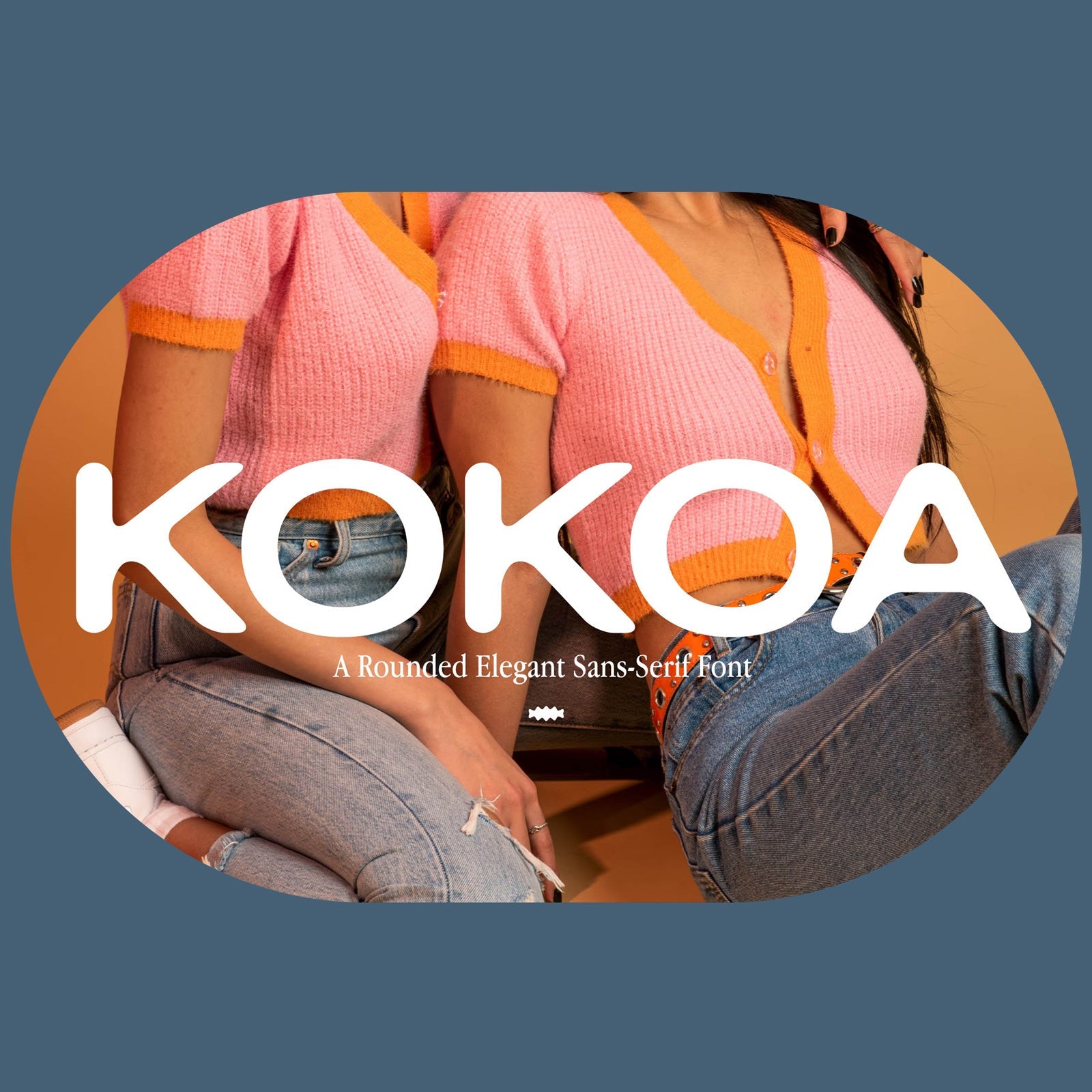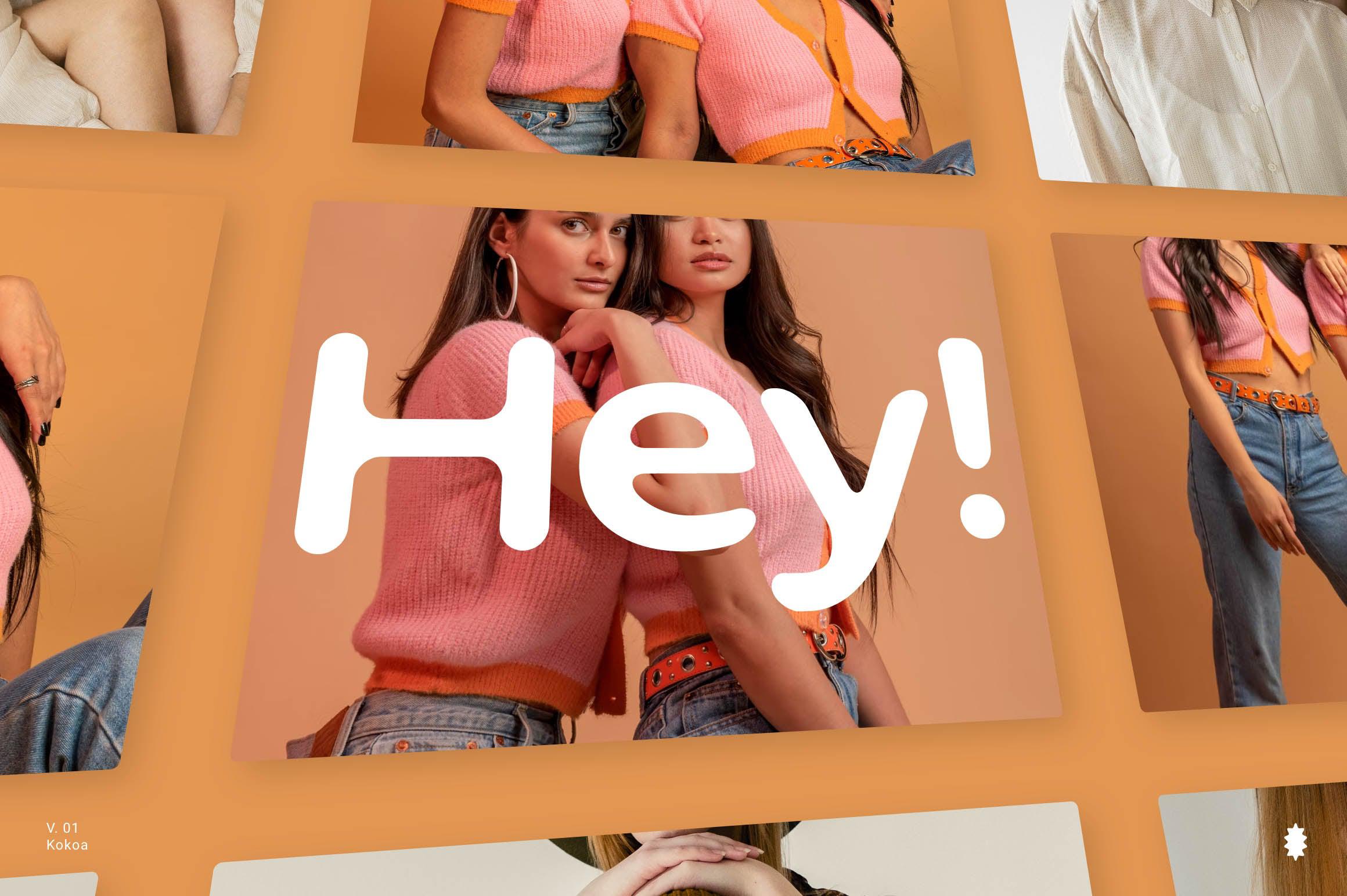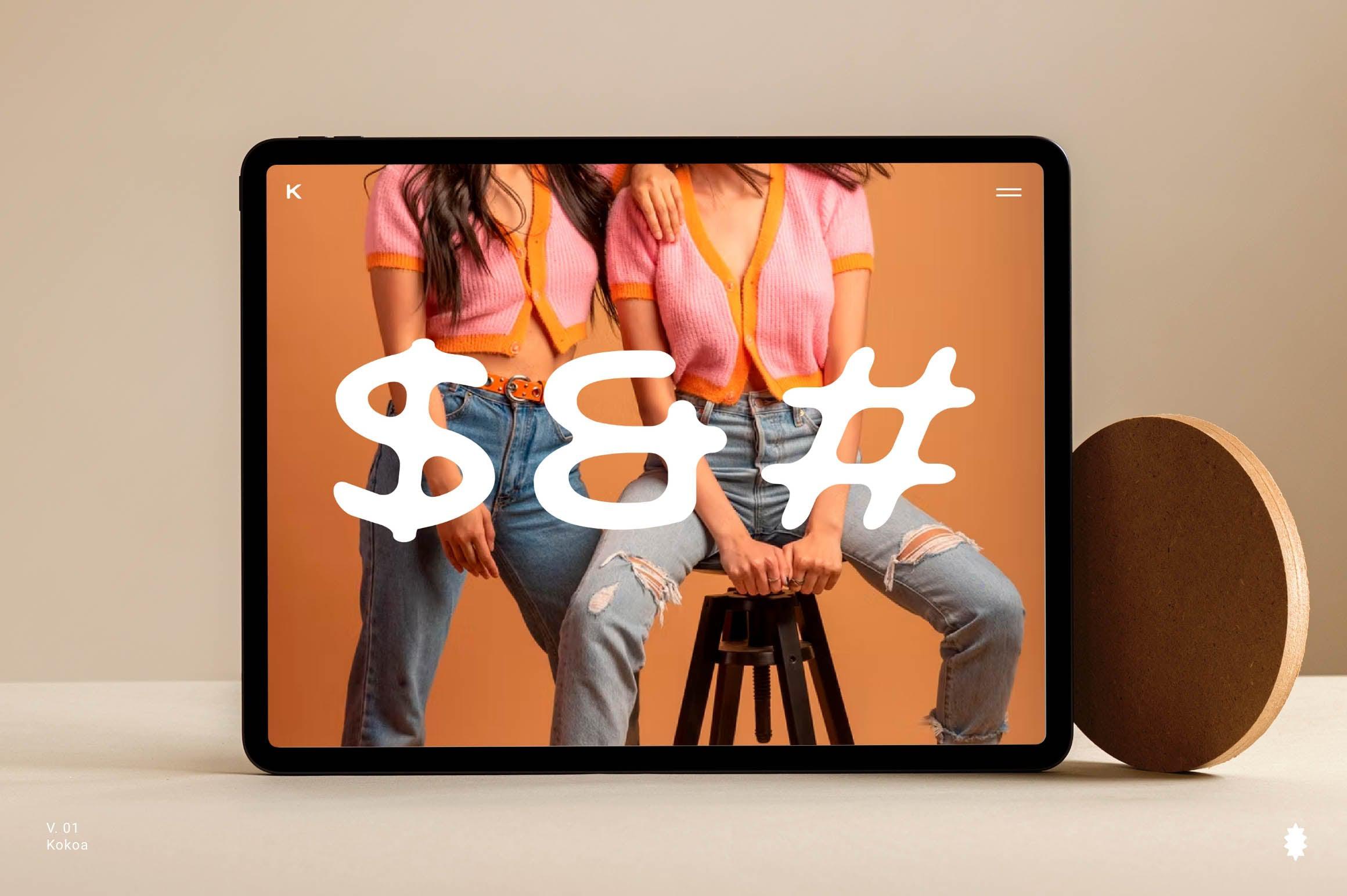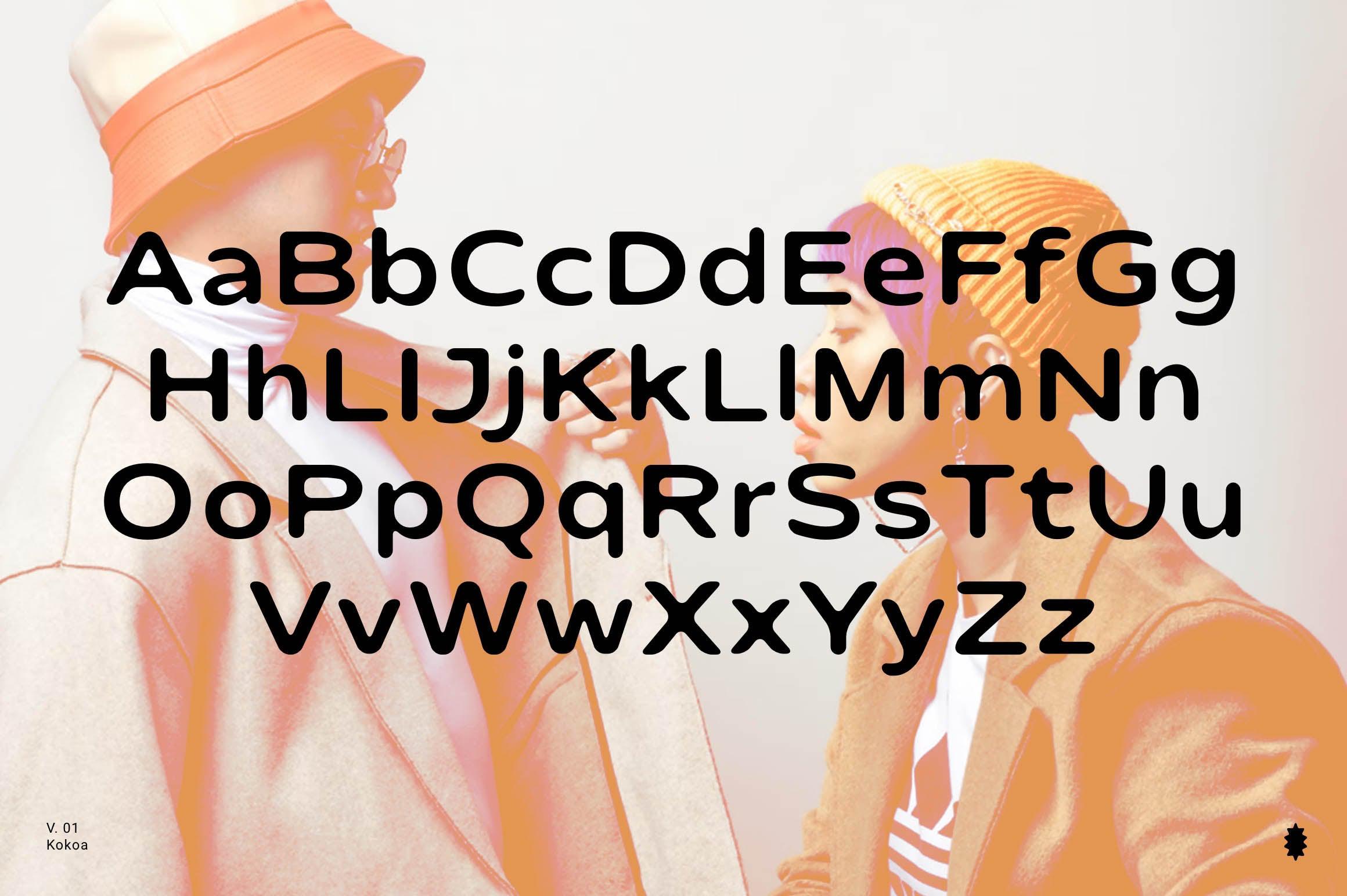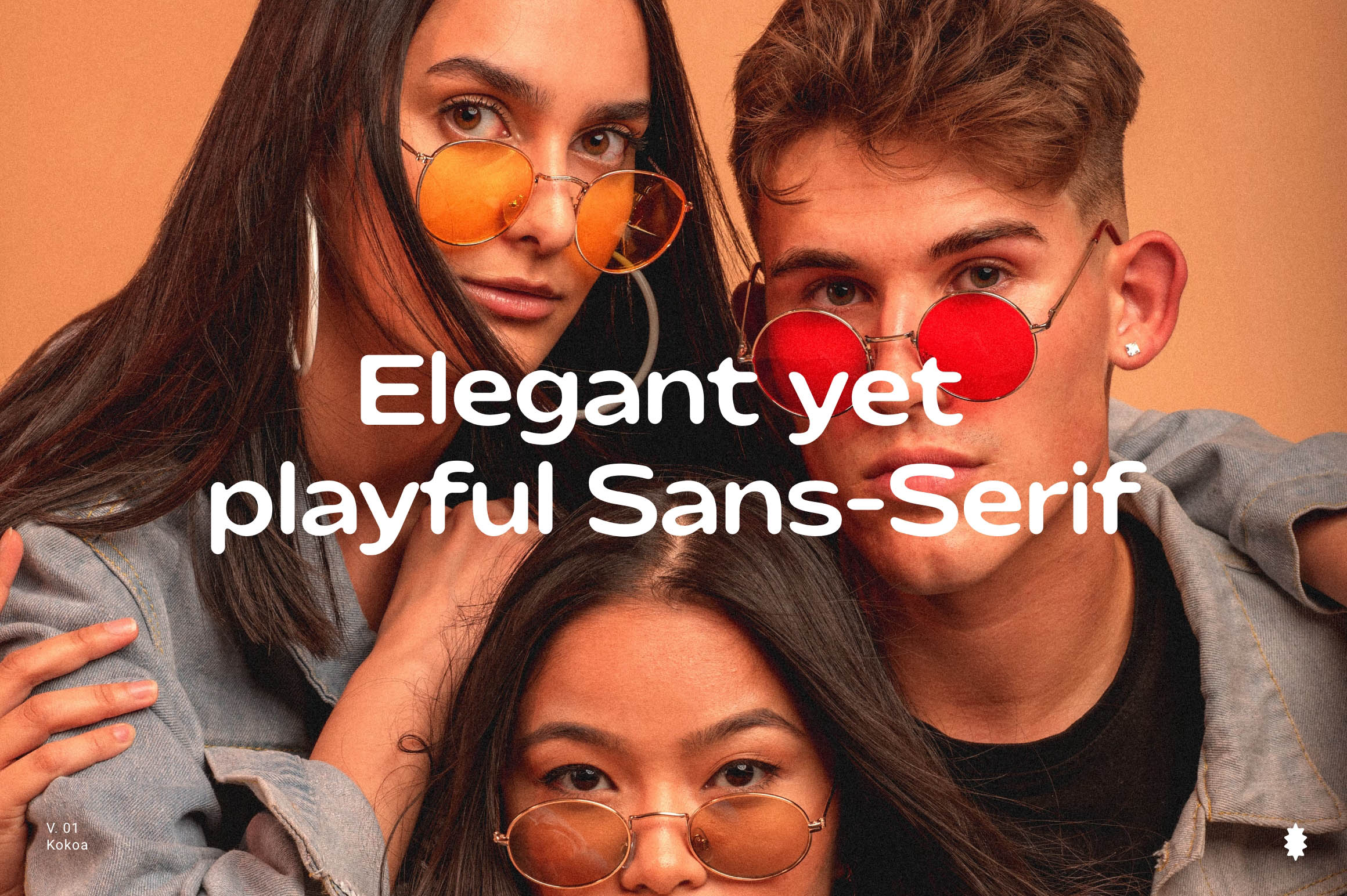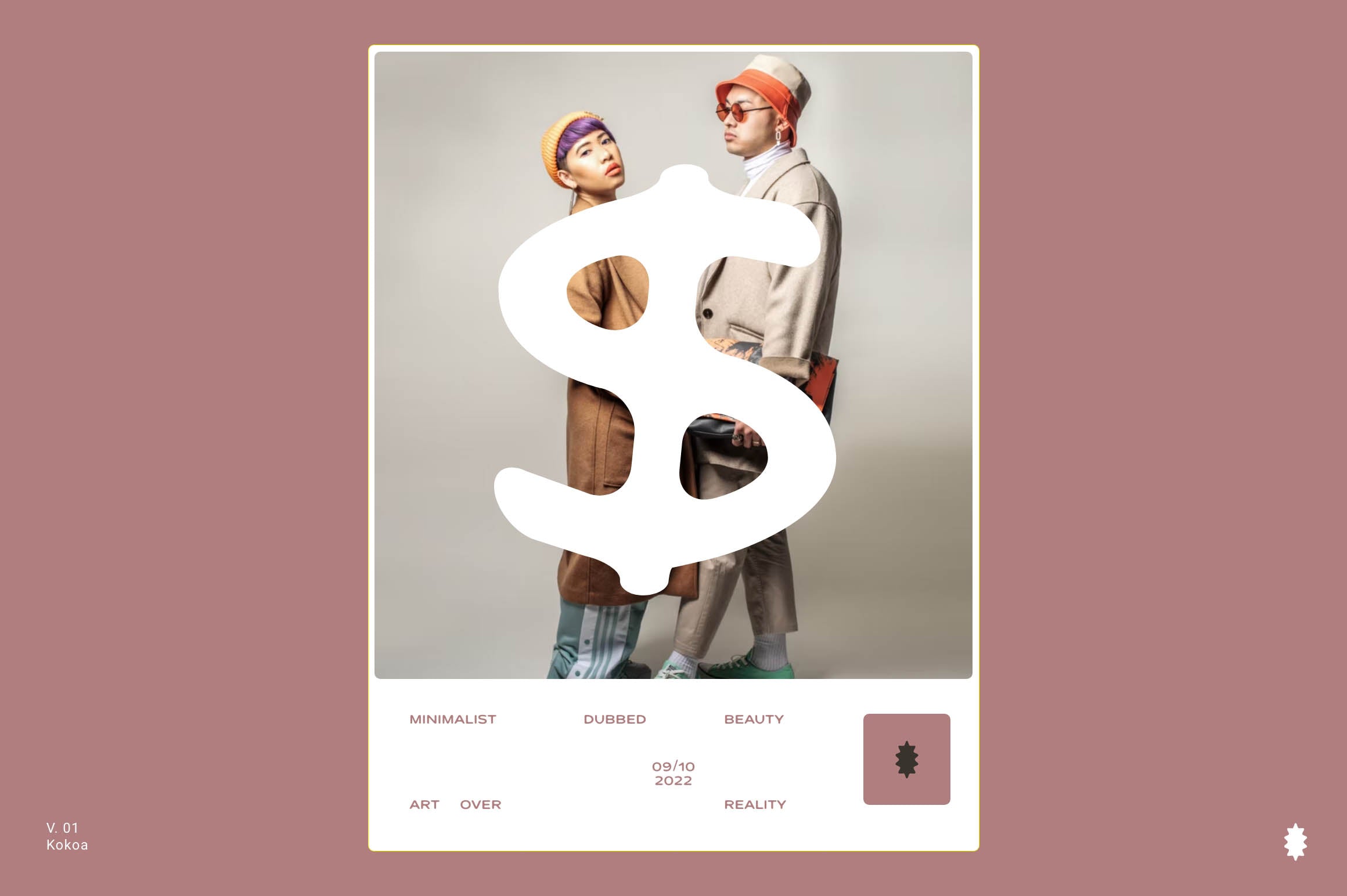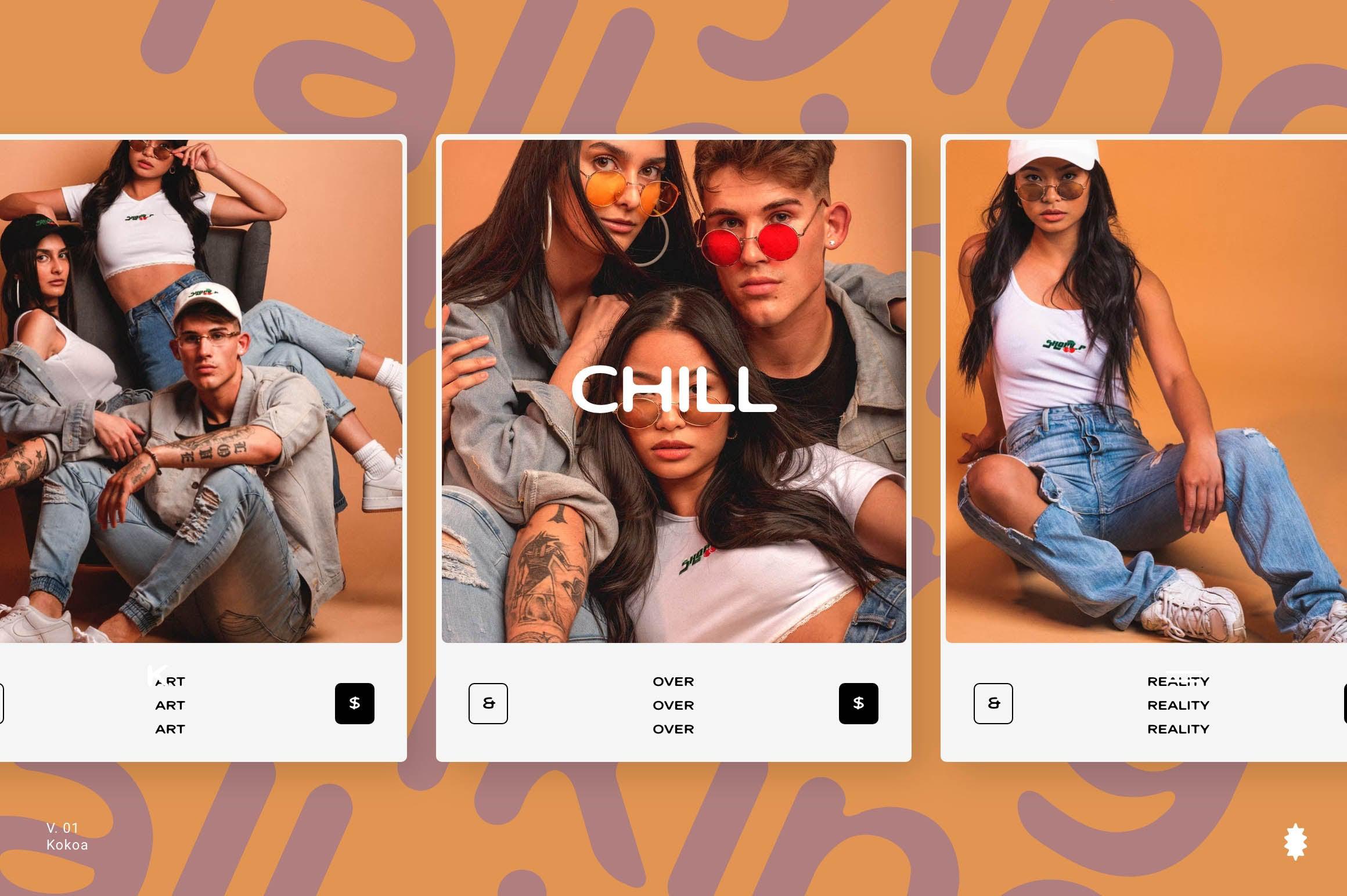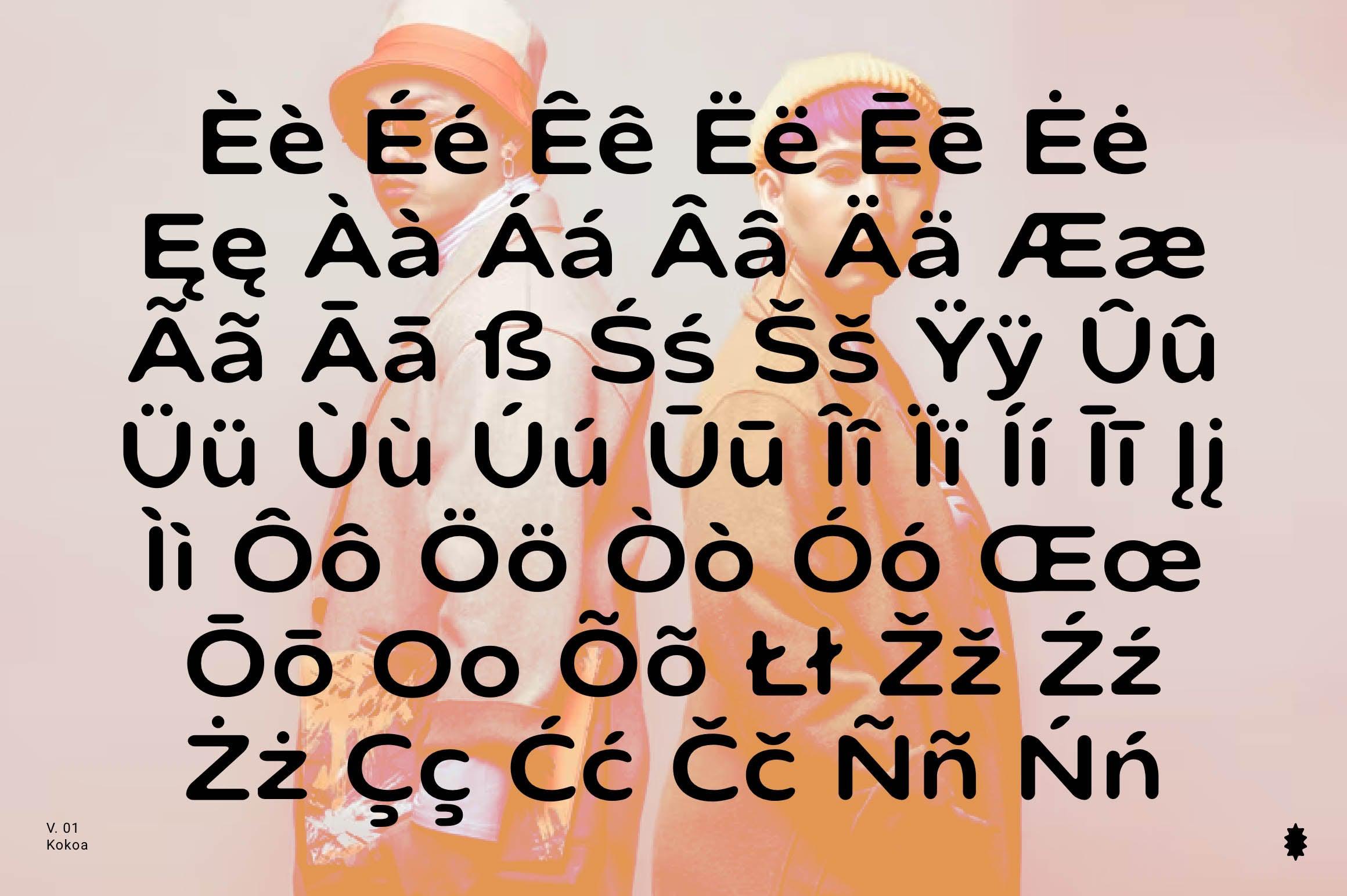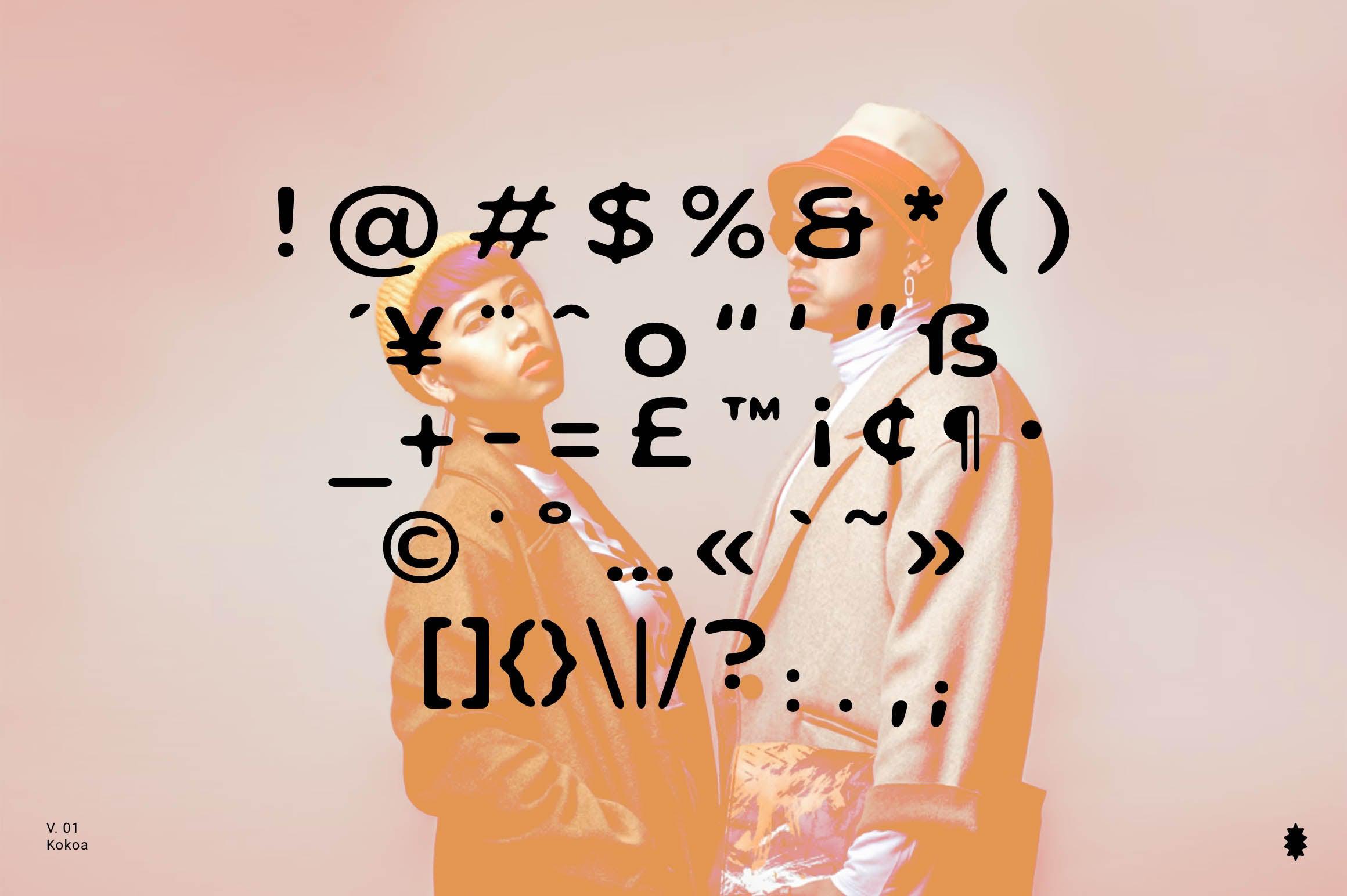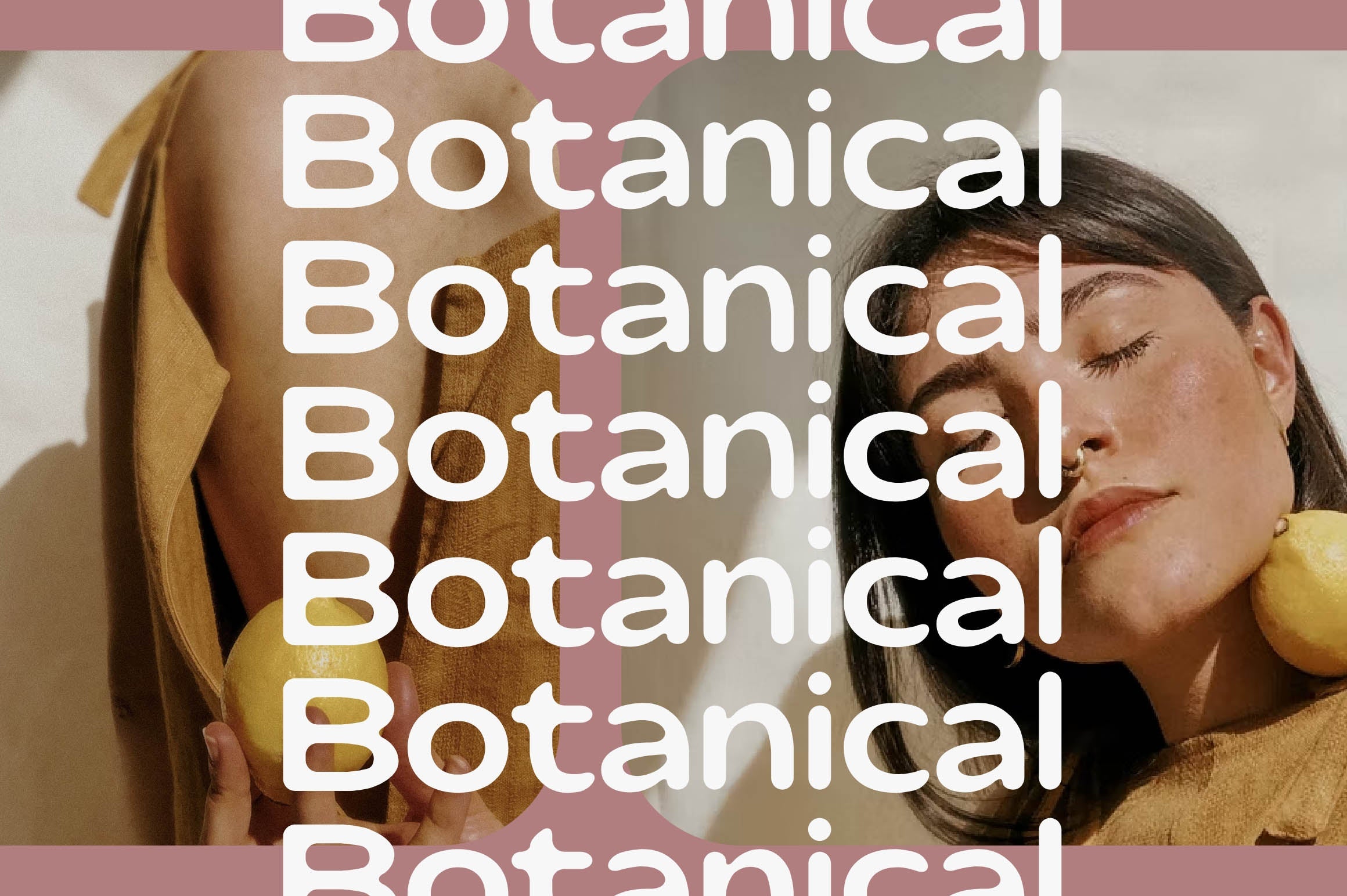
Kokoa Font
Say hello to Kokoa, the font that will add a touch of fun and playfulness to your designs. Kokoa is a sans-serif font with a rounded look that exudes a natural, friendly vibe.
With its clean lines and balanced proportions, Kokoa is perfect for a variety of design projects, from logos and branding to social media graphics and packaging. Its rounded edges and soft curves give it a natural and approachable feel, while its bold, strong appearance makes it a great choice for titles and headlines.
But don't let its playful look fool you - Kokoa is a professionally designed font that is both legible and easy to read. Its carefully crafted letters and balanced spacing ensure that your message comes through loud and clear, no matter how you use it.
Kokoa Font is a sans-serif, rounded typeface that offers a playful yet professional design. It features clean lines, balanced proportions, and carefully crafted letters for legibility, making it a versatile choice for various design projects.